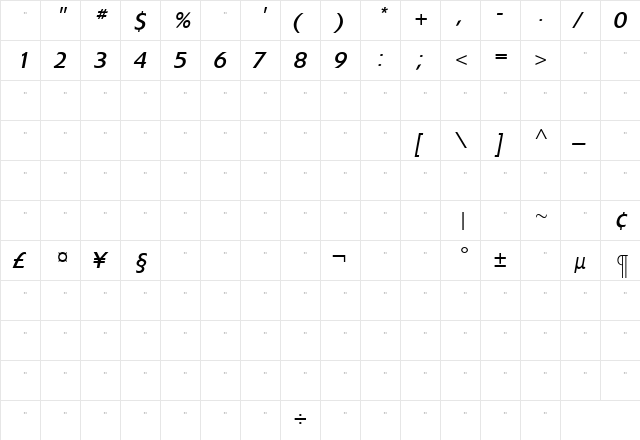
ExtensionBookItalicTab Roman
Design Context for ExtensionBookItalicTab Typeface
ExtensionBookItalicTab offers clean, dependable letterforms without strong stylistic allegiance, making it a practical choice for designers who need flexibility. Its italic angle brings a sense of urgency and motion to the letterforms.
Pro Tip: Use ExtensionBookItalicTab for emphasis, pull quotes, and subheadings where its slanted energy can add rhythm to the layout.